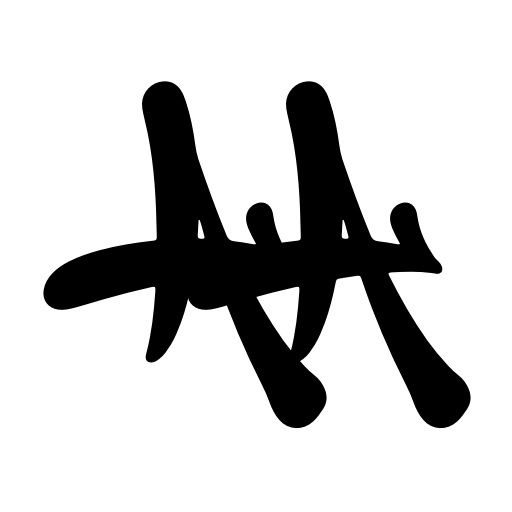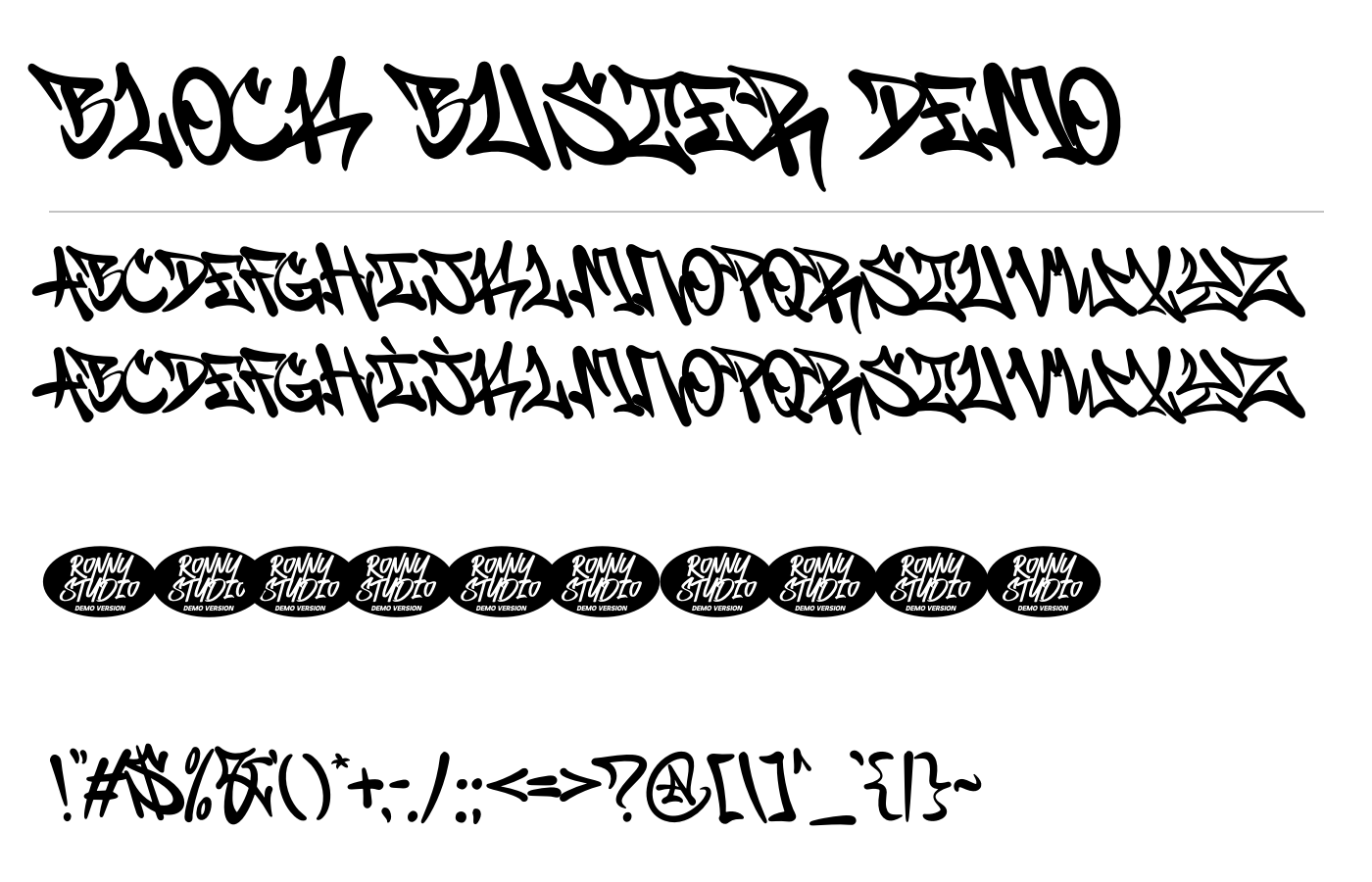
Block Buster DEMO is a bold, expressive graffiti-style display font characterized by its sharp, angular strokes and energetic, hand-drawn feel. With its irregular forms and high contrast between thick and thin lines, it conveys a rebellious, urban vibe perfect for streetwear branding, posters, and creative projects seeking an edgy, youthful impact. This font works best in headlines or logos where a strong, informal personality is desired.
Block Buster DEMO Font
About Block Buster DEMO Font